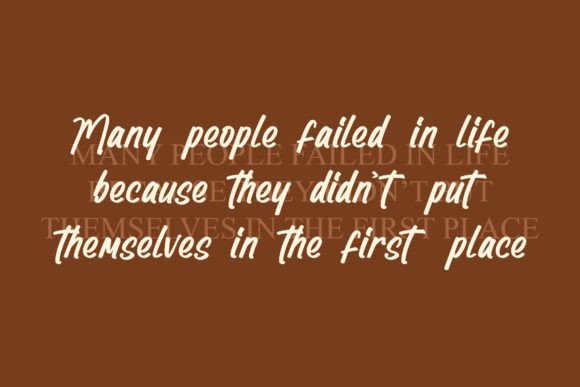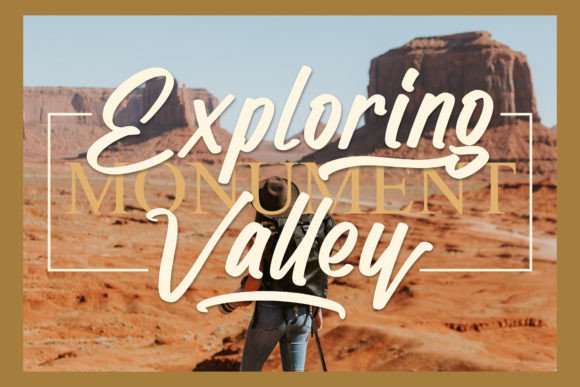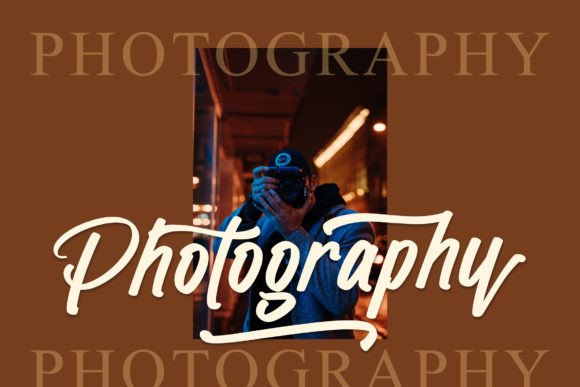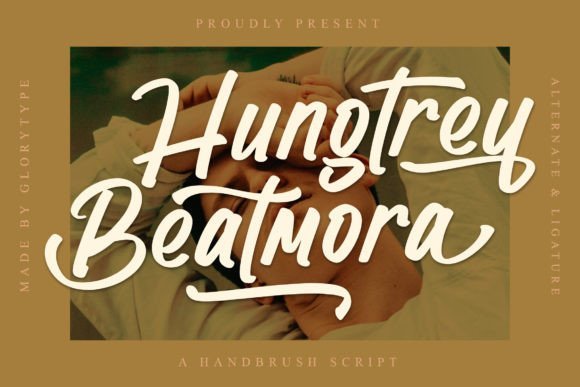
Introduction to Hungtrey Beatmora Font
Hungtrey Beatmora is a handwritten brush script designed to charm your projects.
From quotes and packaging to whatever else, this font will send the message you desire .